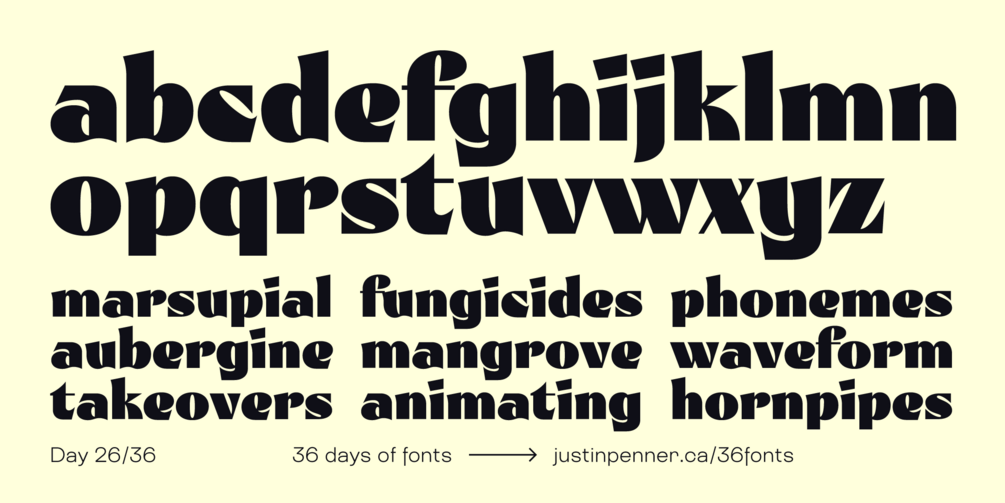
36 Days of Fonts: Day 26
RELEASE UPDATE
Hilt is now Ritualist! Ritualist is a retail font with an extended character set, and many more improvements.
Hilt
Many experienced type designers will "dull" the pointy bits in their letters, a technique carried over from the era of metal type. Now, in a digital world, we can draw needle-like points, infinitely sharp.